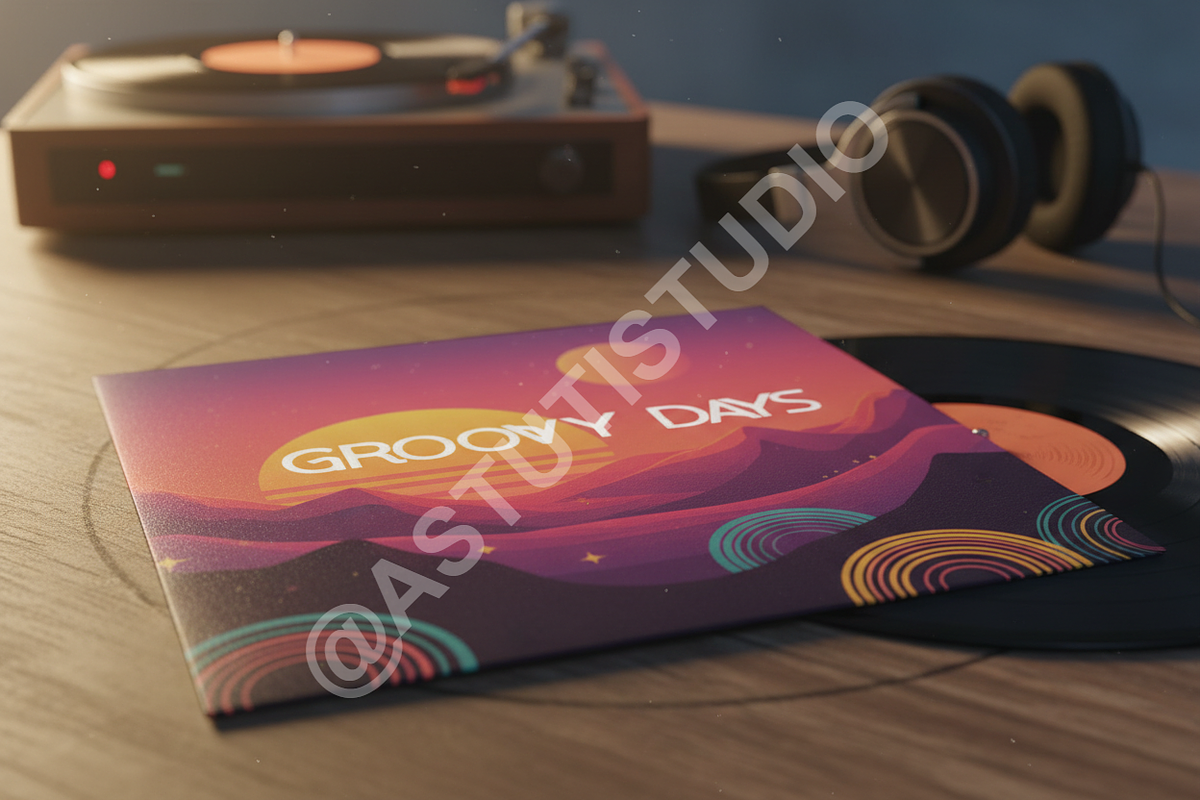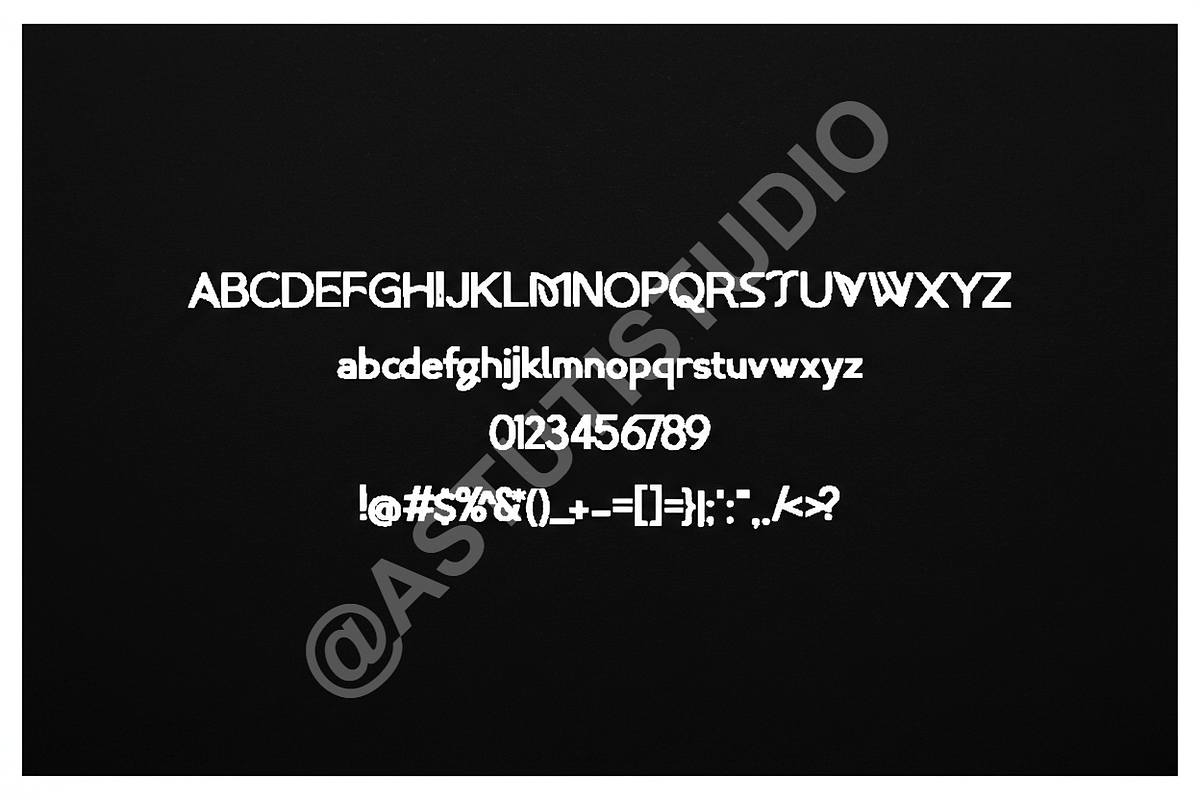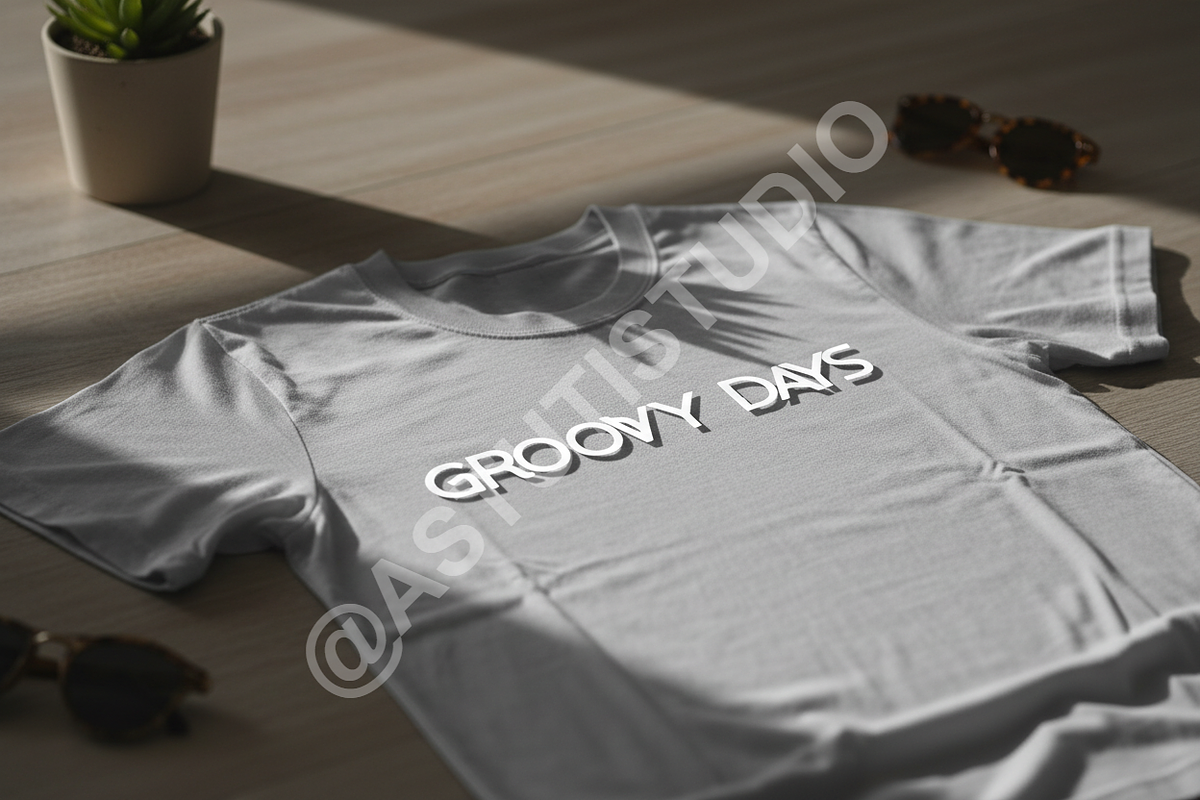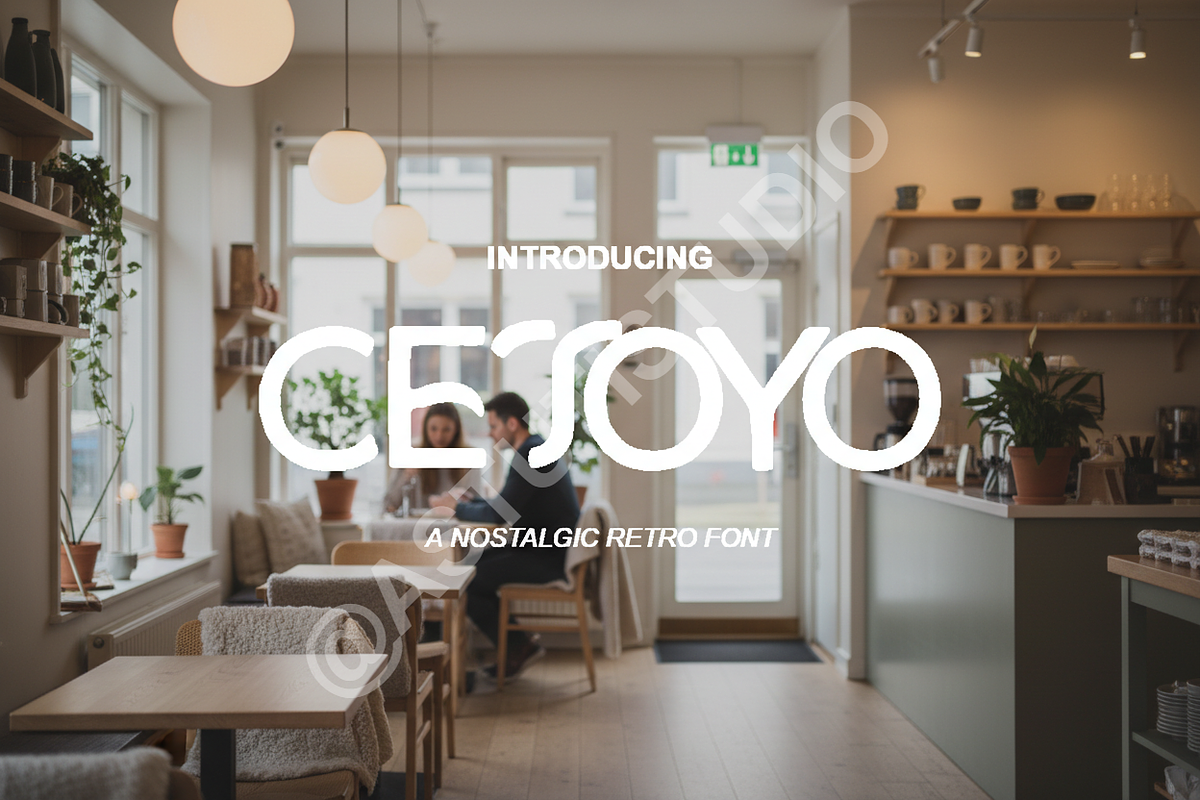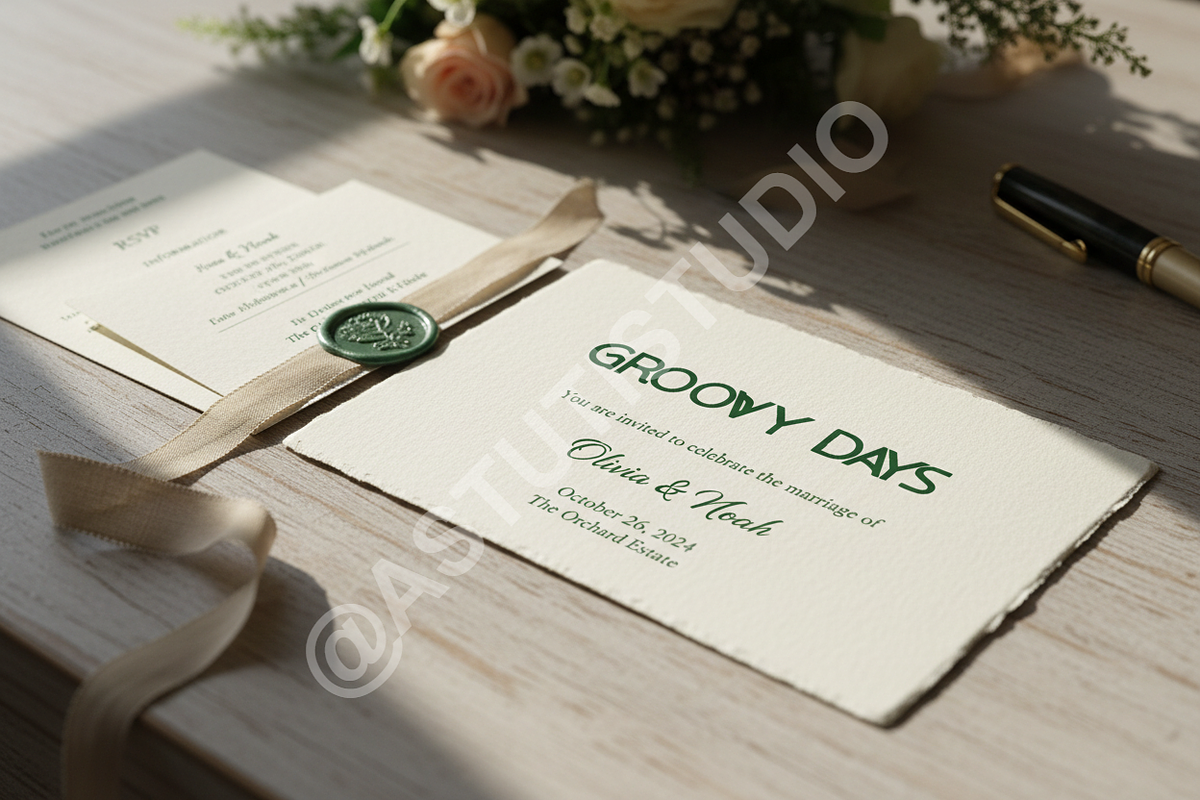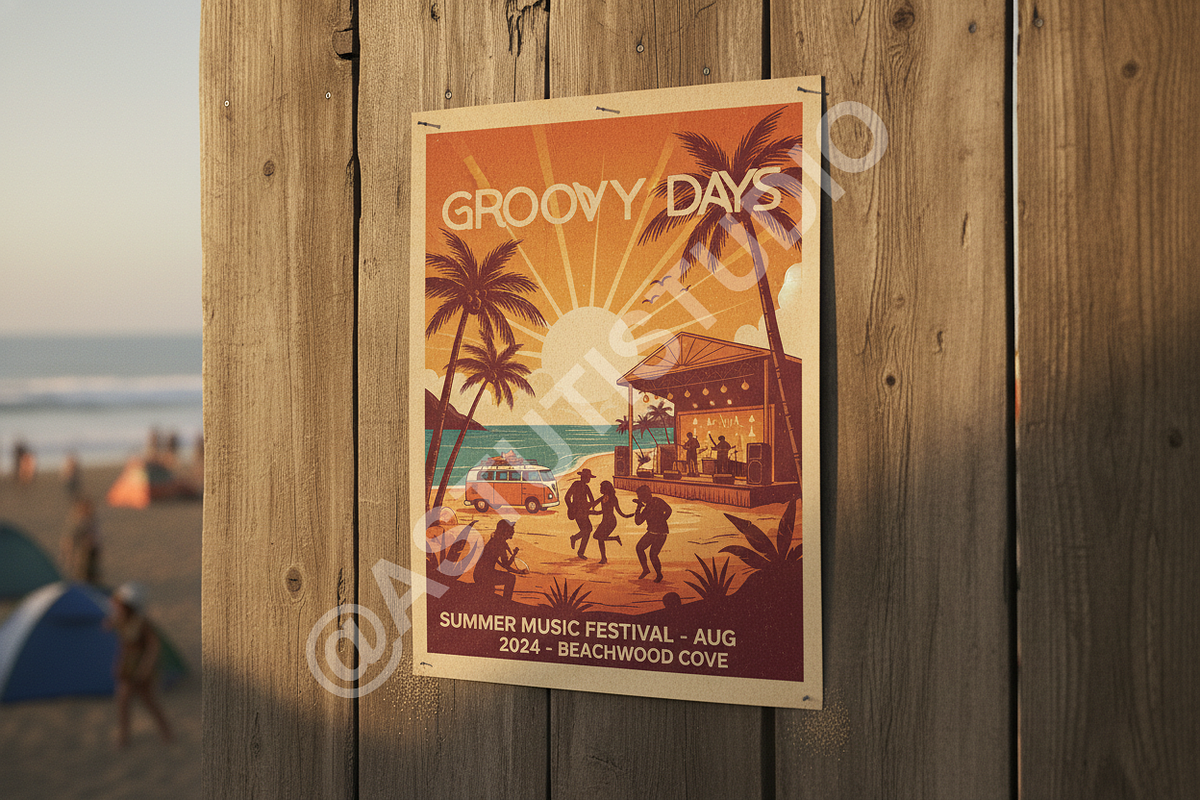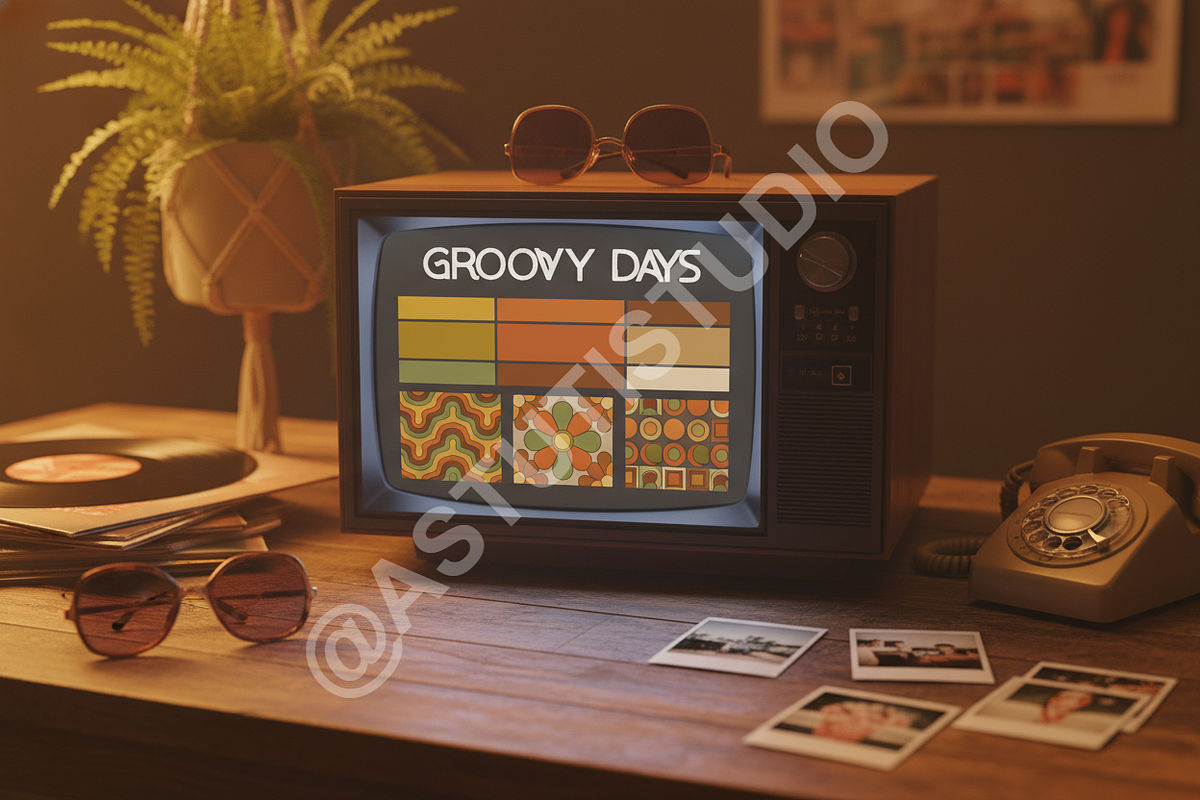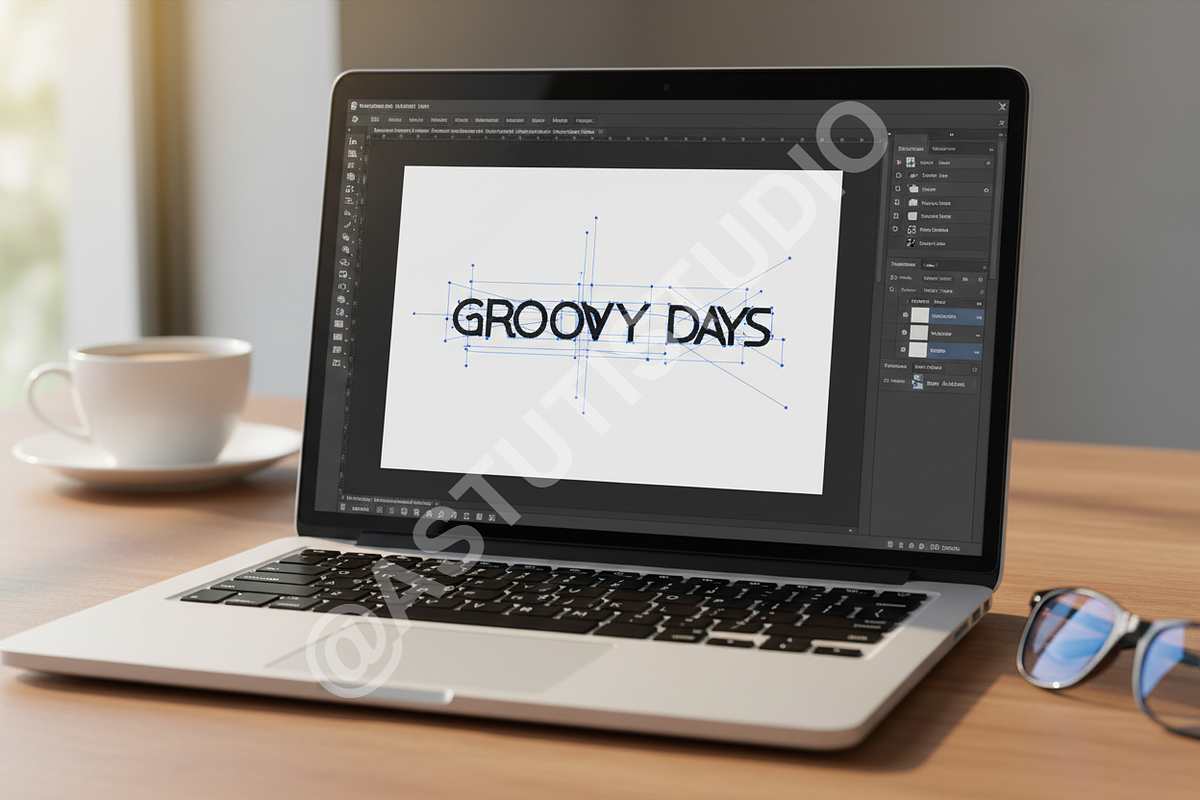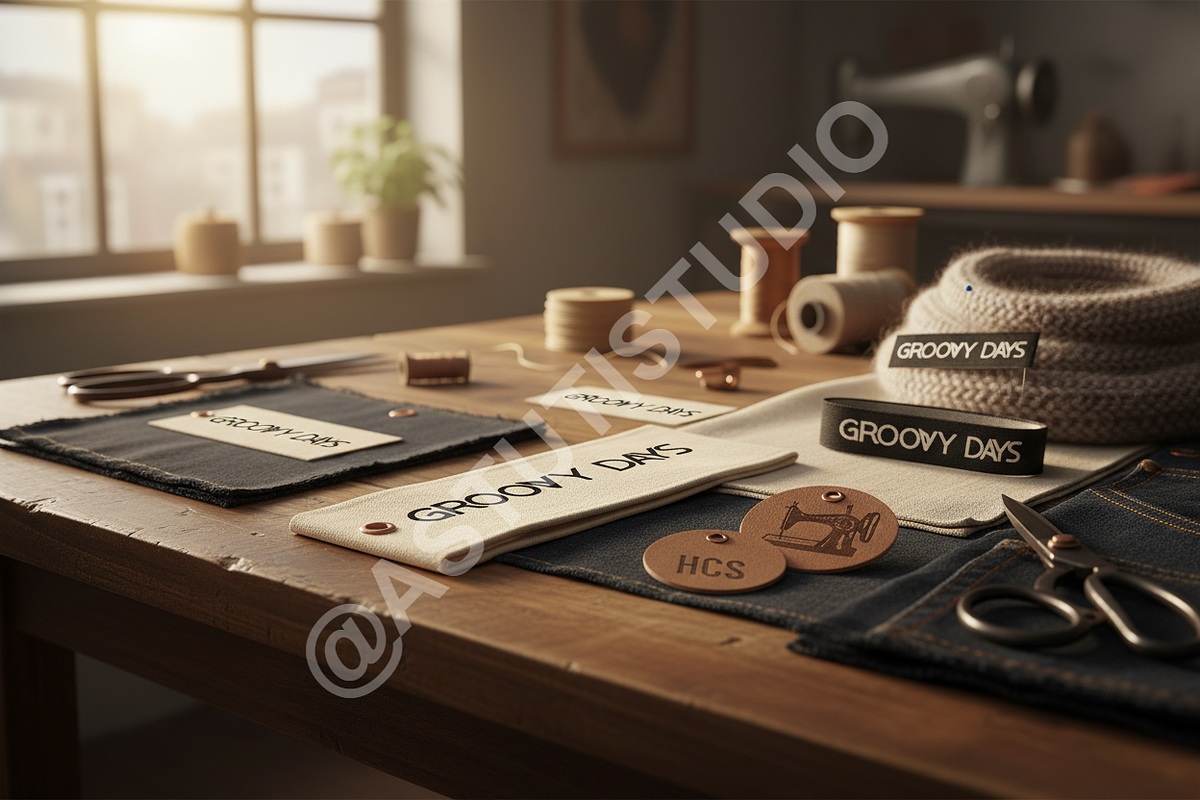
Cetoyo — Elegant Display Serif for L
Introducing Cetoyo, an exquisitely crafted display serif font designed for the discerning creative professional. Cetoyo embodies sophisticated luxury, combining classic elegance with modern clarity. Its balanced proportions and subtle high-contrast elements make it the definitive choice for projects demanding an air of prestige, from high-end fashion campaigns to refined digital interfaces.
Key Design Features: • Timeless Elegance: Perfect for creating impactful headlines and sophisticated logos. • Extensive Ligatures & Alternates: Includes a curated set of stylistic alternates and unique ligatures to enhance typographic flow and customization. • Multilingual Support: Covers a wide range of Western and Central European languages. • Optimal Readability: Designed with meticulous attention to detail, ensuring clarity even in complex editorial layouts. • Versatile Application: Ideal for luxury packaging, editorial magazines, elegant invitations, and curated social media graphics.